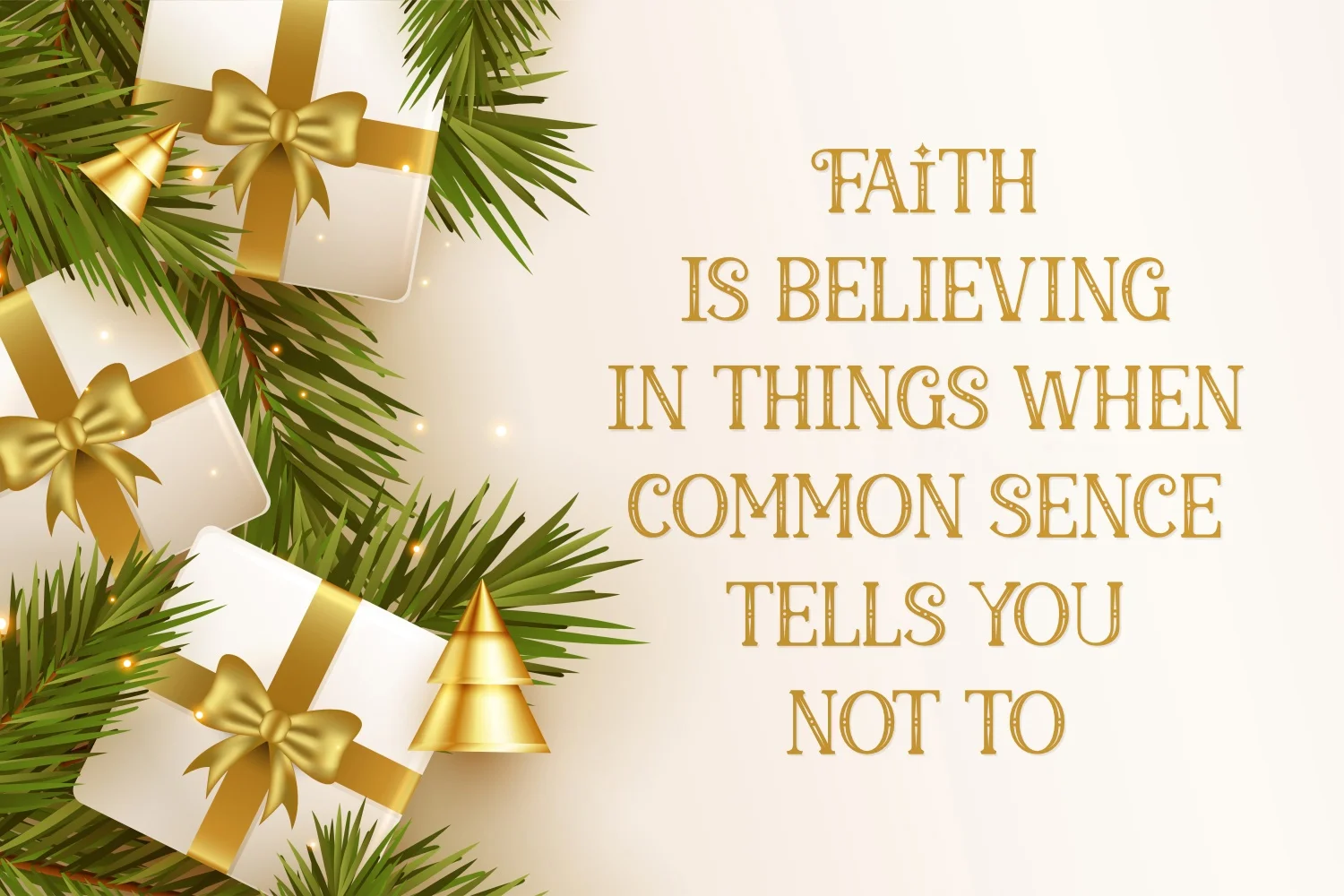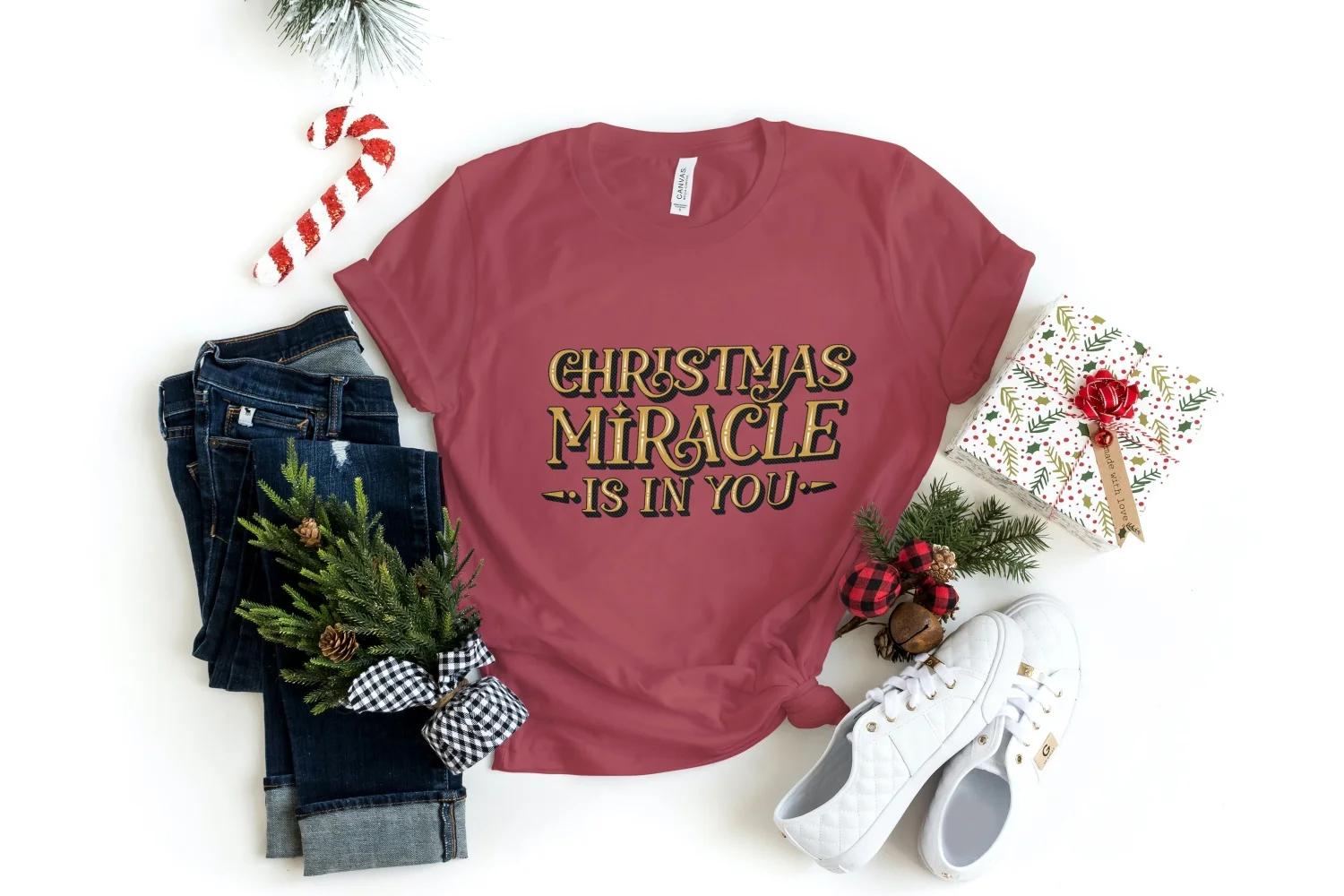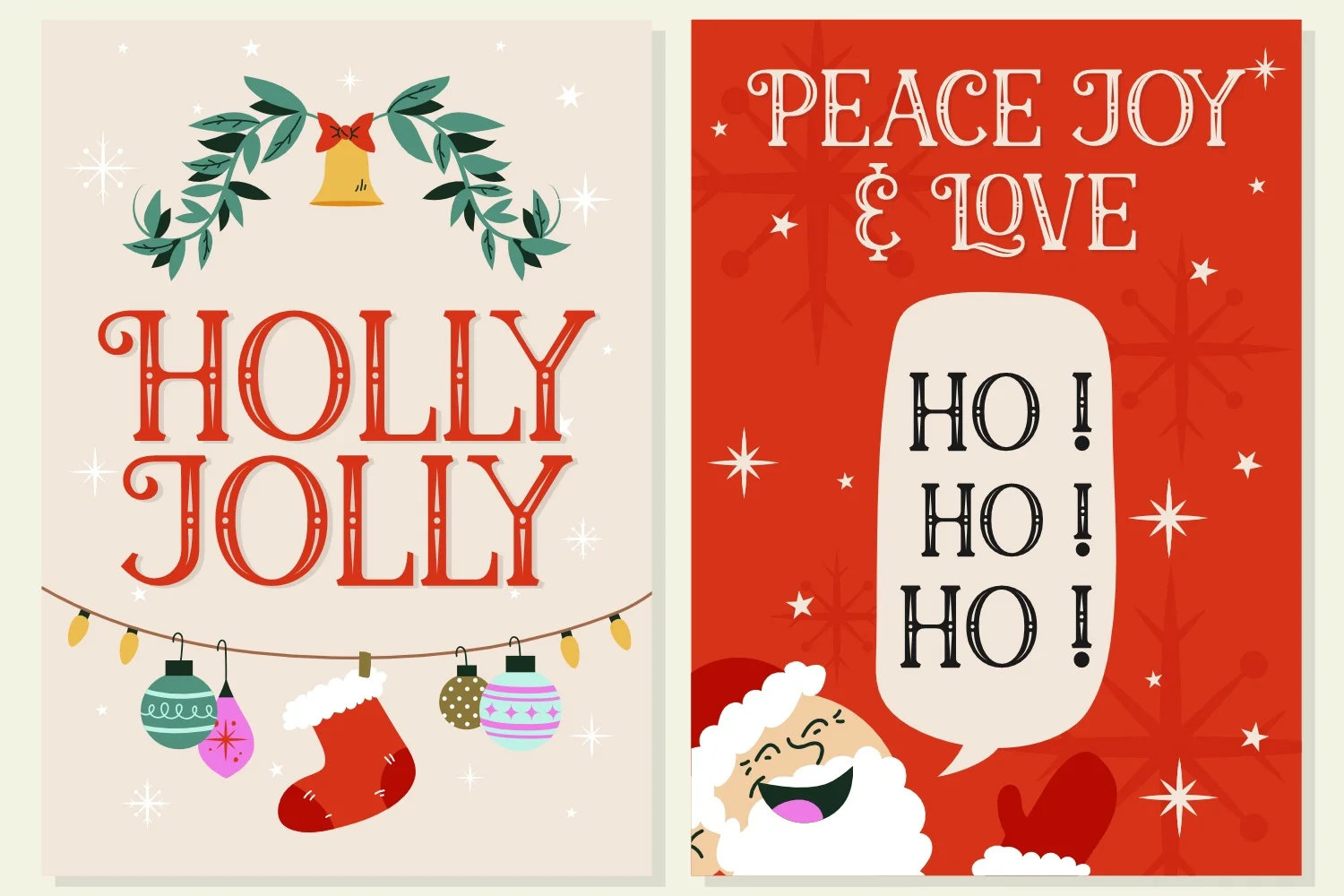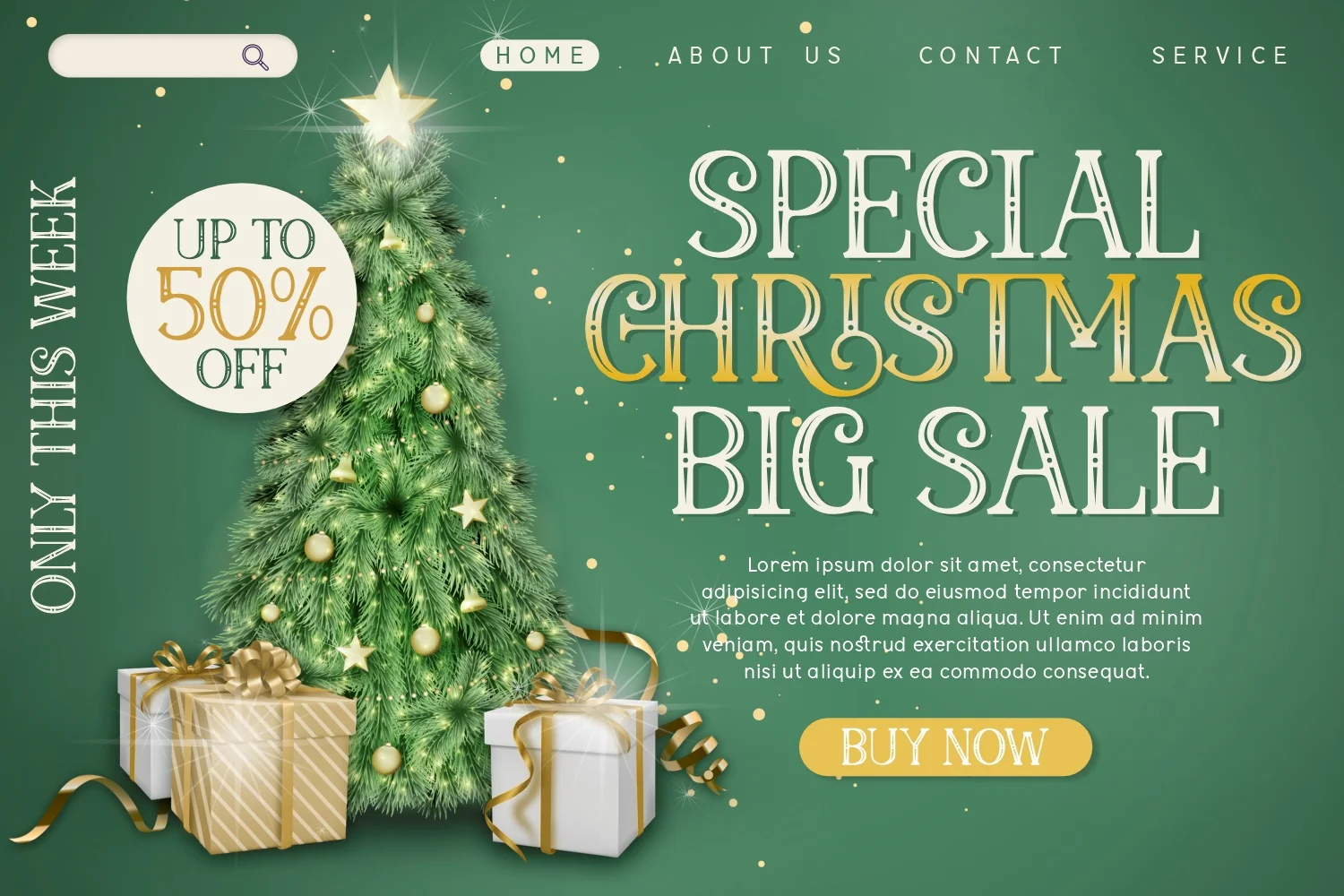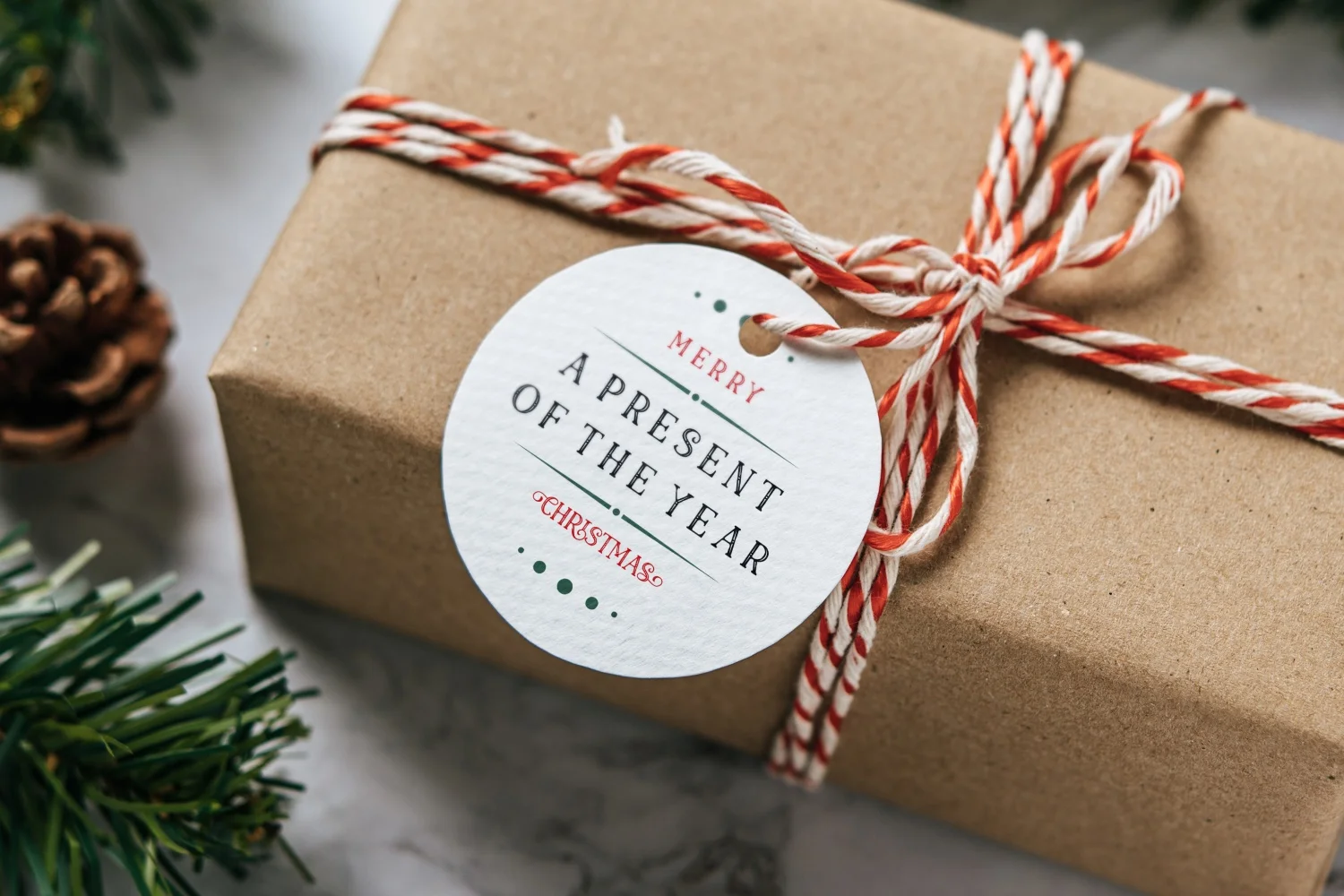
Glorious Christmas Font
This magnificent font is perfect for grand Christmas celebrations, glorious holiday displays, majestic Christmas decorations, triumphant seasonal campaigns, splendid Christmas events, magnificent holiday signage, glorious Christmas church services, regal Christmas branding, spectacular seasonal advertisements, and triumphant Christmas messaging materials.
Glorious Christmas Font is exciting because it captures the magnificent splendor and triumphant glory of Christmas through its majestically crafted letterforms that embody the divine magnificence and celestial beauty of the greatest celebration in human history. The font features grand, stately characters with regal proportions and glorious details that reflect the supreme importance and heavenly significance of Christmas, incorporating golden flourishes and triumphant elements that create typography worthy of announcing the birth of the Savior and the glory of God made manifest on earth. Each letter showcases the dignity and divine majesty that befits the most glorious event in human history, with powerful strokes and celestial accents that transform ordinary text into proclamations of heavenly glory. The design perfectly captures the awe-inspiring magnificence and overwhelming beauty that surrounds the Christmas story, creating typography that feels both sacred and celebratory, divine and accessible.
The Glorious Christmas Font family includes magnificent style variations: Regular, Bold, Light, Majestic, and Divine versions. The collection features special glorious elements including crown flourishes, celestial star accents, golden details, and triumphant ornaments. Additional components include glorious borders, magnificent frames, regal decorations, and divine ornamental designs that enhance the font's glorious Christmas appeal and create cohesive magnificent holiday themes.
Churches and grand celebration planners will find Glorious Christmas Font to be an invaluable resource for creating awe-inspiring holiday communications that honor the supreme glory and divine magnificence of Christmas. This magnificently crafted font transforms ordinary Christmas messaging into glorious proclamations that convey the overwhelming beauty and triumphant joy of the greatest story ever told - the glorious birth of Christ that changed the world forever.
The typeface includes comprehensive character support with glorious styling that maintains excellent readability while conveying the magnificent splendor and divine glory of Christmas celebrations. The font's majestic design ensures spectacular results across both intimate worship applications and grand-scale glorious holiday displays.
Perfect for churches, grand Christmas events, magnificent celebrations, and glorious holiday communications, this font delivers triumphant visual impact that communicates divine glory, magnificent beauty, and the overwhelming splendor of Christmas that continues to inspire awe and wonder in hearts around the world.